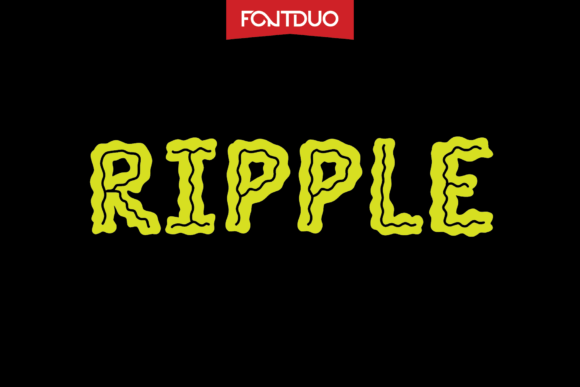
Ripple Font: A Fluid, Hand-Lettered Display Typeface for Crafters
If you’ve ever held a handmade candle, admired a farmhouse-style welcome sign, or flipped through a boutique wedding invitation suite—you know how much a single font can shape the feeling of your product. That’s why I reached for Ripple the moment I saw its gentle, rhythmic waves. Ripple FD isn’t just another script—it’s a beautifully crafted wavy hand-lettered inline typeface, designed with intention for makers who care about both aesthetic charm and real-world usability.
What makes Ripple special is its balance: each letter flows like ink pulled across paper, yet remains crisp and legible even at small sizes. The subtle thickness variation and soft, organic curves give it warmth without sacrificing clarity—especially important when your font ends up on a 1.5-inch sticker, a kraft paper gift tag, or a heat-pressed tote bag. As a display font, Ripple shines brightest in short, high-impact phrases: “Hand Poured,” “Welcome Home,” “Made With Love,” or a bride’s monogram on a wooden cake topper.
I’ve used Ripple across dozens of physical and digital products—and every time, it elevates perceived quality. On candle labels, its fluid motion echoes the gentle melt of soy wax. On greeting cards, it adds personality without overwhelming delicate watercolor backgrounds. For wedding stationery, it pairs effortlessly with minimalist vellum envelopes or linen-textured cardstock. And yes—it cuts cleanly on my Cricut Maker and Silhouette Cameo, especially when I convert text to outlines first and avoid ultra-thin strokes below 14 pt for intricate cuts.
Ripple works beautifully for seasonal craft designs too. Think “Cozy Season” on holiday mugs, “Sunshine & Saltwater” on summer stickers, or “Gather Round” on rustic Thanksgiving signs. Its rhythm feels alive—not stiff or overly formal—so it breathes life into farmhouse, coastal, botanical, and modern boho brands alike. Because it’s an inline design (with open counters and connected strokes), it reads as cohesive and intentional—even when used in all-caps or spaced-out lettering for wall art or planner headers.
Readability matters most where customers interact directly with your product. I test Ripple at three key sizes: 10–12 pt for small product tags (like tea box labels), 24–36 pt for printable wall art or invitation titles, and 60+ pt for large-format signs or SVG cut files. At all three, it holds up—no blurry edges, no lost detail. Just smooth, confident presence. For tiny stickers under 1 inch, I stick to 3–4 word phrases and avoid tight kerning; for printed cards, I often use it at 28 pt with generous letter spacing to let those waves breathe.
Font pairing is where Ripple truly sings. I almost always pair it with a clean, neutral sans serif—think Montserrat, Lato, or even a light weight of Inter—for body text, ingredient lists, or fine print. That contrast keeps the focus on Ripple’s expressive voice while grounding the layout in professionalism. For a warmer twist, I’ll layer it with a simple serif like Merriweather or Playfair Display—ideal for wedding suites or artisanal packaging where tradition meets movement. Avoid pairing Ripple with other highly decorative scripts; its personality is strong enough to stand alone or anchor a thoughtful duo.
One thing I love about Ripple is how it supports brand consistency without demanding uniformity. You can use it across your Etsy shop—on your banner, product photos, packaging inserts, and thank-you cards—and customers begin to recognize that gentle wave as *yours*. It doesn’t shout. It invites. It feels handmade, even when scaled for mass production. That emotional resonance? It’s why buyers choose your lavender soap over another, or pin your printable quote to their vision board instead of scrolling past.
Whether you're designing a limited-run sticker pack, updating your product labels, building a seasonal Canva template shop, or creating wedding signage for local clients—Ripple gives your work movement, meaning, and quiet confidence. It’s not flashy. It’s thoughtful. And in a world of noisy, overdesigned fonts, that kind of intention is rare—and deeply valuable.
So next time you’re choosing a display font for your next batch of handmade goods, ask yourself: does it move like your brand? Does it feel like something your customers would want to hold, read, and keep? With Ripple, the answer is almost always yes.